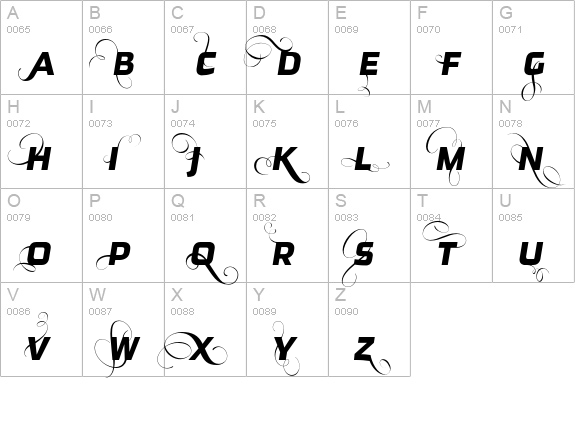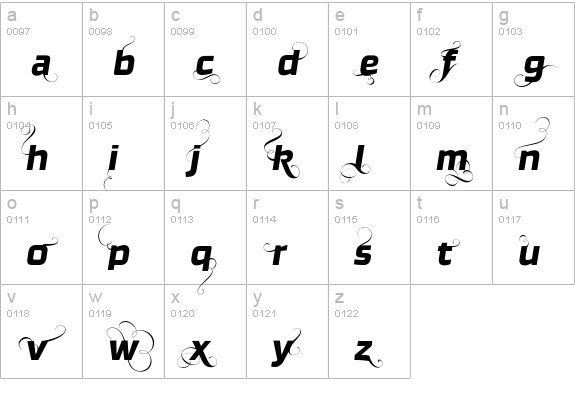
Introducing Ginger-RegularFlamboyant font, a playful and vibrant typeface that exudes personality and charm. Designed with a touch of flamboyance, this font is perfect for adding a fun and energetic flair to any project. The unique curves and stylish letterforms of Ginger-RegularFlamboyant make it stand out and capture attention. Best of all, Ginger-RegularFlamboyant font is available for free download at FontsMarket.com. Whether you're looking to add a whimsical touch to your designs or want to make a statement with your typography, Ginger-RegularFlamboyant is the perfect choice. Let your creativity shine with this exciting and dynamic font that is sure to make a lasting impression. Download Ginger-RegularFlamboyant today and bring your projects to life with its playful charm and bold style.